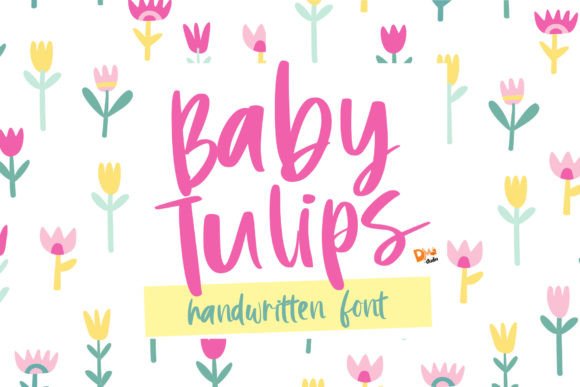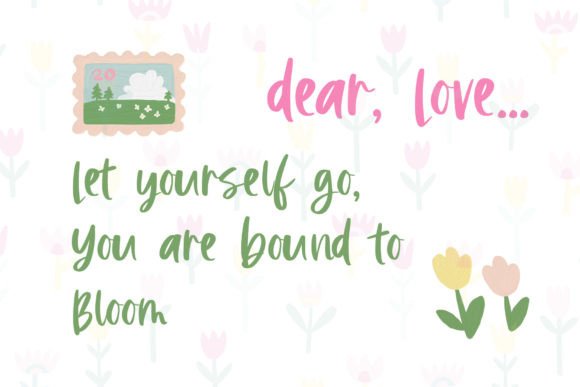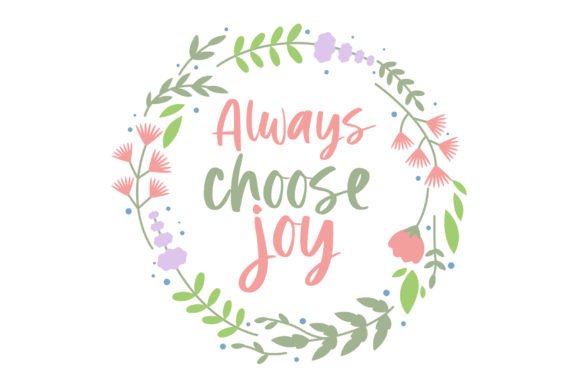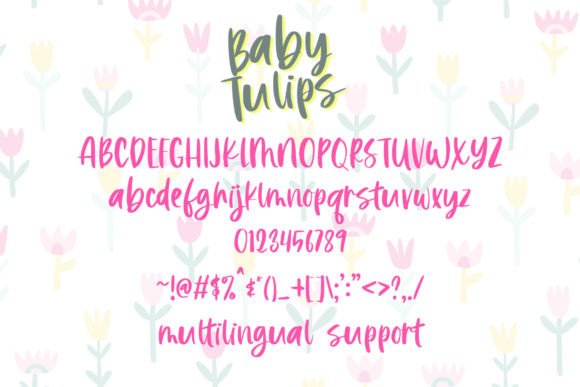
Baby Tulips Font
About Baby Tulips Font
Introducing “Baby Tulips,” a gorgeous handwritten font that exudes loveliness and is suitable for a wide range of creative purposes. This font asset is not just a typographic tool but an opportunity to infuse your projects with beauty and creativity.
The charming and handwritten style of “Baby Tulips” adds a personal and warm touch to any design. Its loveliness is versatile, making it suitable for various purposes, allowing you to unleash your creativity and bring your ideas to life.
For design projects where aesthetics and beauty are paramount, “Baby Tulips” shines as a delightful choice. Whether you’re creating invitations, cards, branding materials, or any other visual content, this font enhances the overall appeal with its gorgeous and distinctive design.
The versatility of “Baby Tulips” allows you to explore different creative avenues. Experiment with various applications, including social media graphics, blog posts, presentations, or any project where a touch of loveliness is desired.
Let “Baby Tulips” be the source of inspiration that sparks your creativity. Use it to express your unique style and elevate your designs to new heights. This handwritten font isn’t just a typographic tool; it’s a creative asset that invites you to be more imaginative and bring a sense of beauty to every project you undertake.